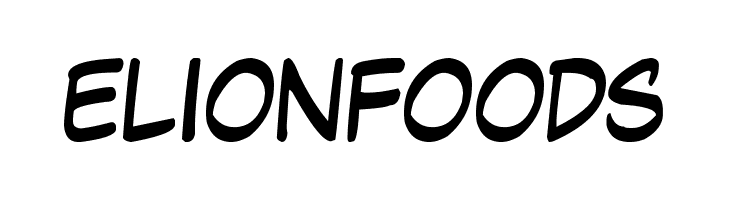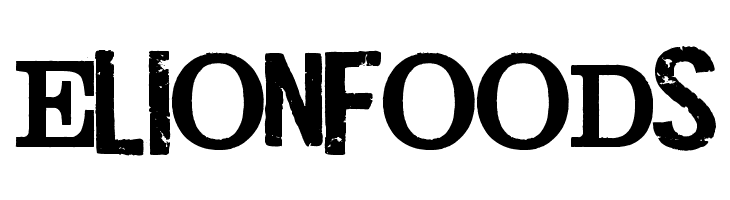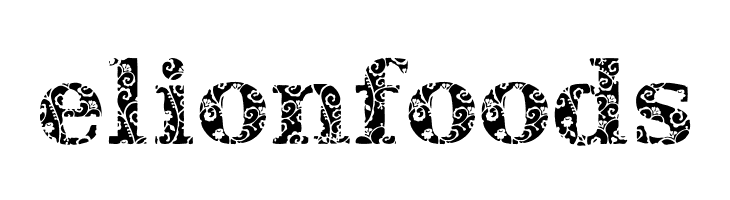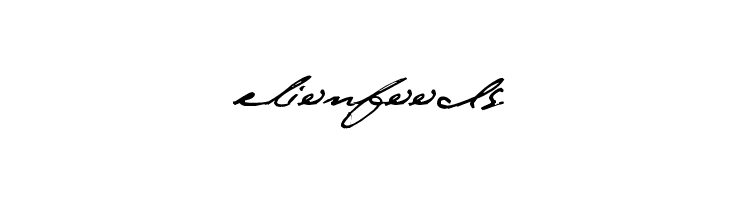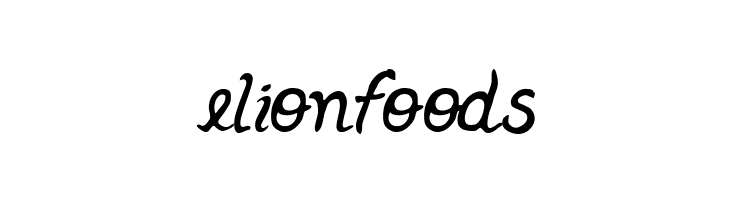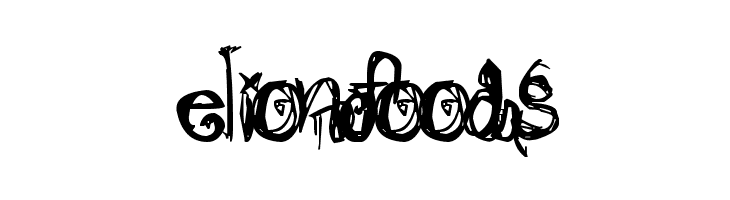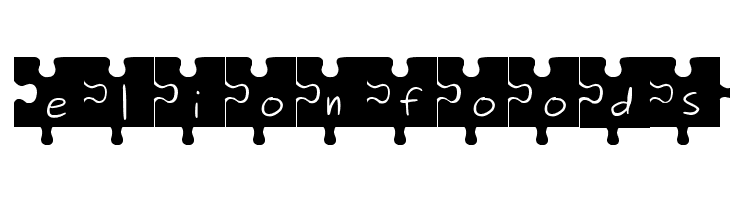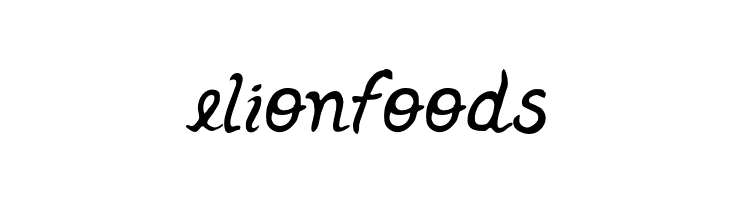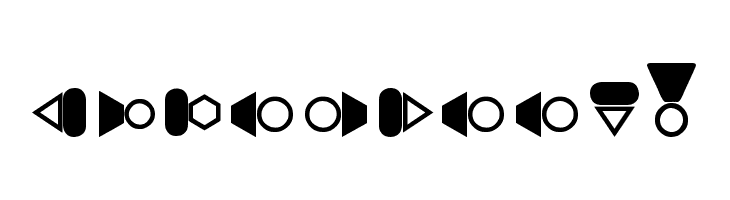
• Jade's Psychosis
• jailbIrD JenNA
A bold, distressed font with a vintage, rugged texture.
• Jaws Comic Pro JY
( Fonts by Comic Pro JY OFF SITE )
A playful, handwritten font with bold, rounded strokes and a casual, friendly appearance.
• Jenelson
• Jenelson-Regular
( Genilson L. Santos )
A playful handwritten font with dynamic strokes and a casual, expressive style.
• Jewelry Parts LT
( LadyTimeless - graphxgonewild.com/ )
A decorative set of geometric symbols resembling jewelry components.
• jey
A dynamic, cursive script font with expressive, flowing strokes.
• JI Hidden Vines
( Fonts by Jeri Ingalls - littlehouse.homestead.com )
A decorative font with intricate vine patterns within each character.
• Jigsaw
• joeHand 1
( Fonts by joeBob graff-X )
A casual, handwritten font with a personal and authentic style.